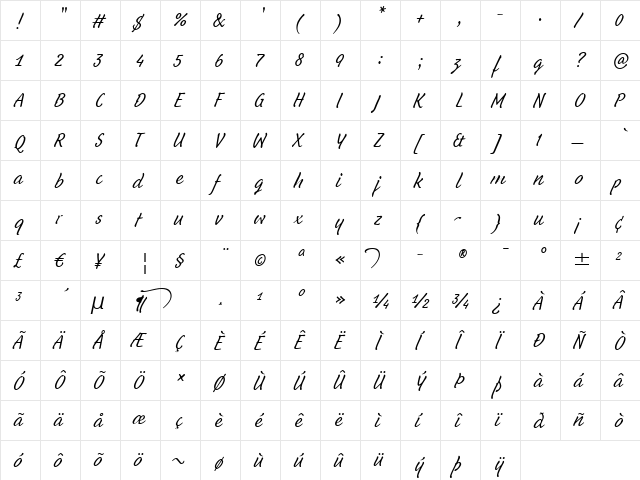
SchussHandITC Medium Font Preview
SchussHandITC Medium
SchussHandITC Medium Font Details
| Foundry | International Typeface Corporation |
Design Context for SchussHandITC Typeface
SchussHandITC brings a calligraphic fluidity to the page — its connecting strokes and expressive curves give it an unmistakably human quality.
Font Pairing: Combine SchussHandITC with a simple geometric sans for maximum contrast — the tension between flowing curves and clean structure is a classic typographic pairing.
Pro Tip: Use SchussHandITC for short runs of text — names, titles, or taglines. Extended body copy in script faces tires the eye quickly.